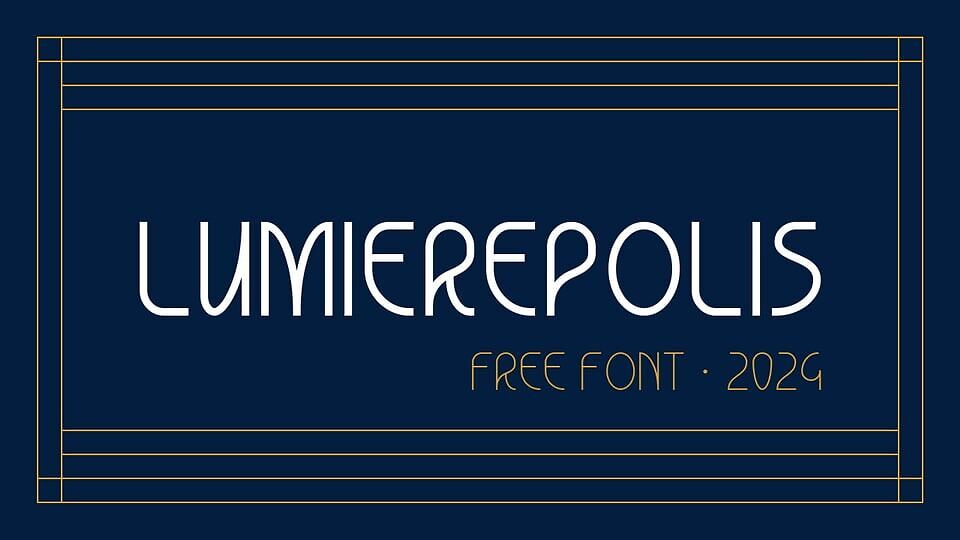
Lumierepolis is an elegant vintage font family that seamlessly blends the sleek precision of Art Deco with the organic fluidity of Art Nouveau. Its condensed structure and geometric forms give it a modern, sharp look, while smooth, graceful curves add an air of refinement. Lumierepolis font maintains a minimalist elegance, offering a clean and sophisticated aesthetic.
The font family includes multiple weights, making it versatile for various applications—from bold headlines to delicate body text. Its subtle interplay of geometry and fluidity makes it ideal for fashion, luxury branding, editorial designs, and upscale digital interfaces.
Embrace the timeless elegance of Lumierepolis font, where vintage inspiration meets contemporary design.